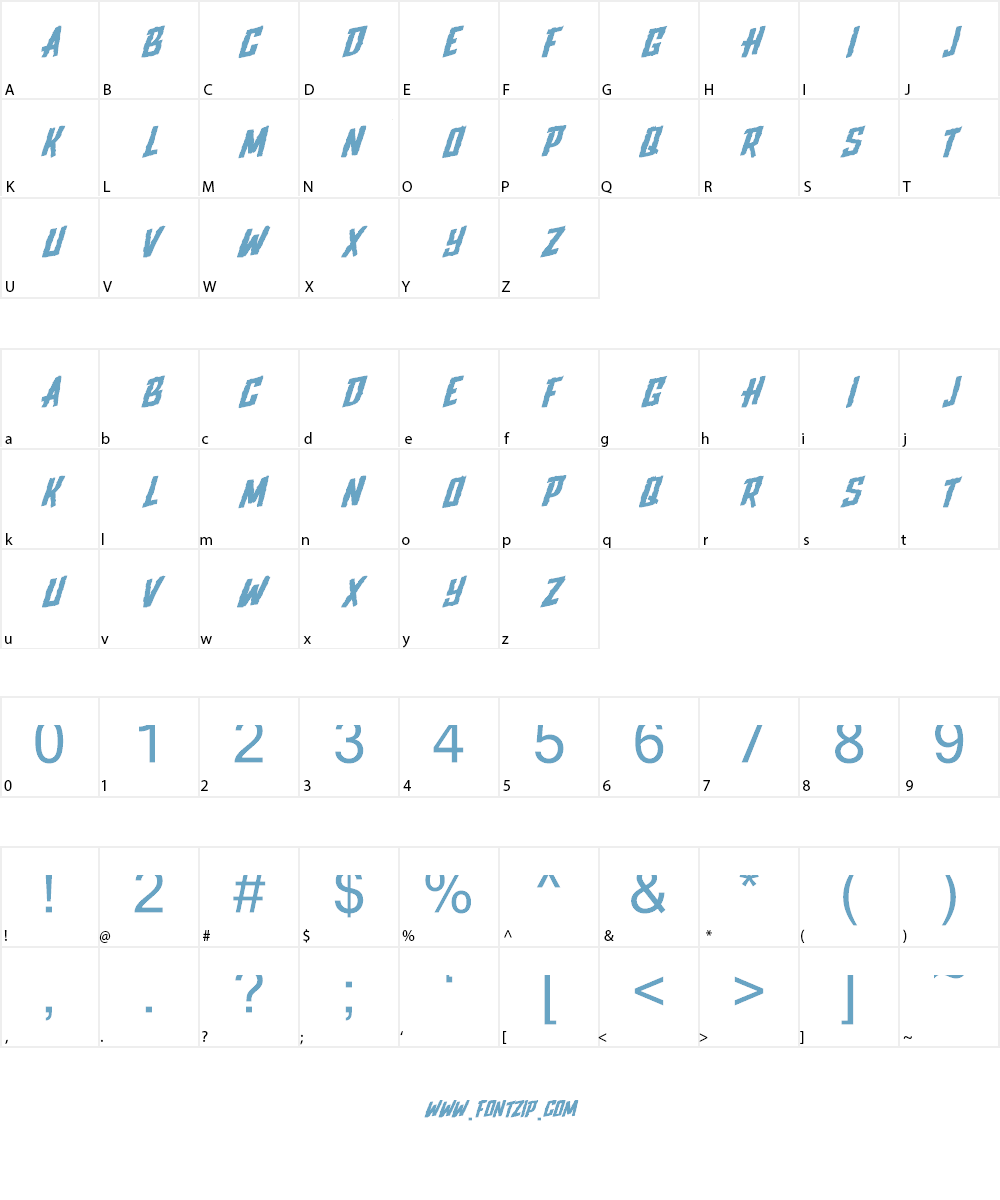
Inspired from Horror and Thriller movie posters back in old era, with bold and solid stroke styles that pointed to the instant-retro feels when you drop it to your vintage or retro design project
Comes with 2 version, Clean and Rough with Uppercase, Numbers and Punctuations. Support English language, OTF and TTF files